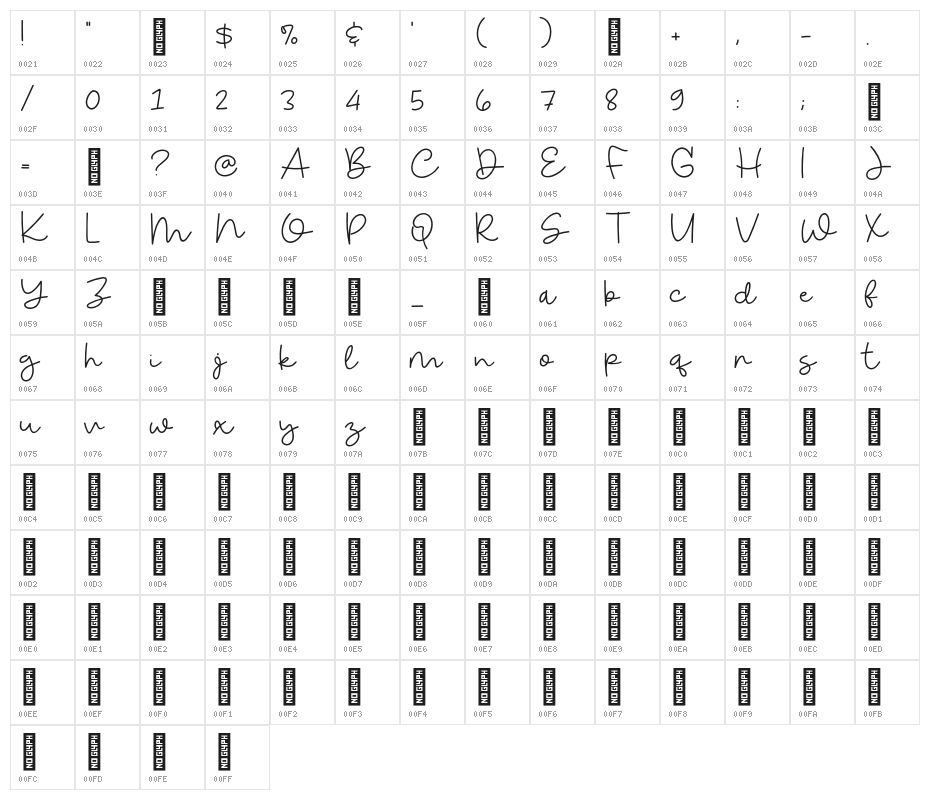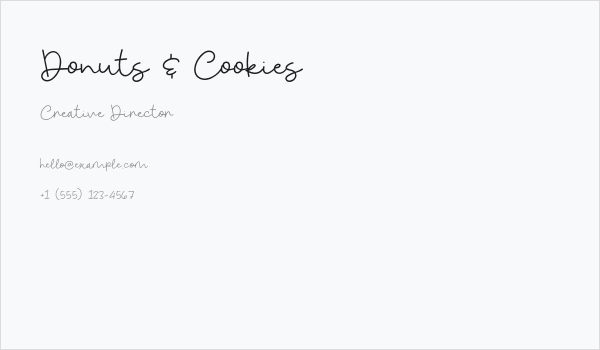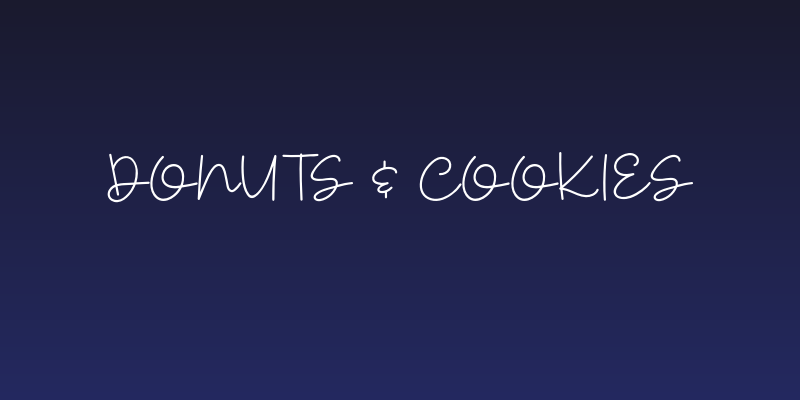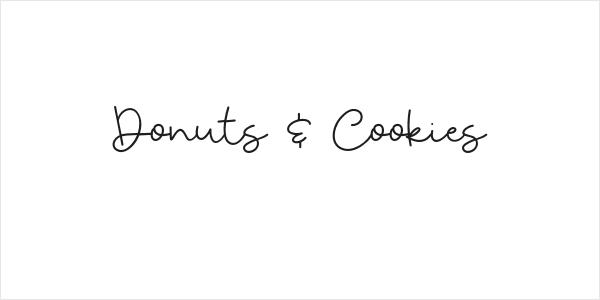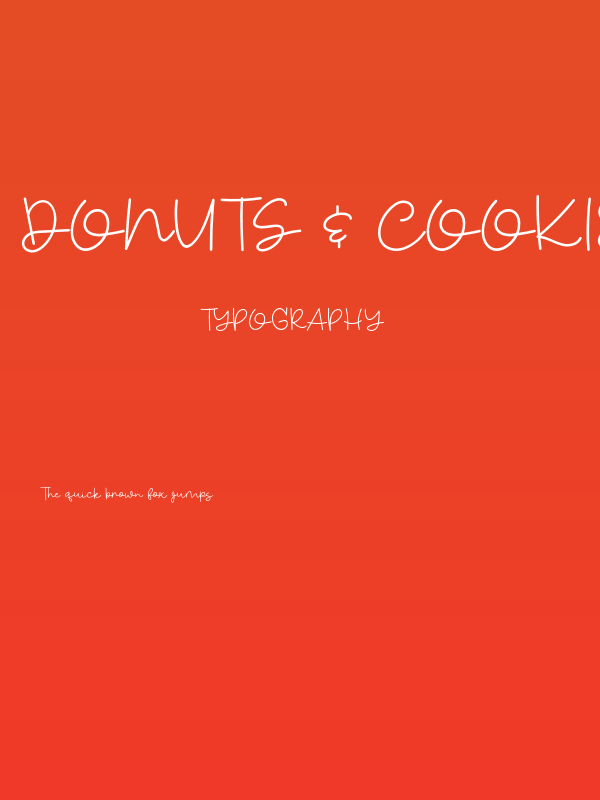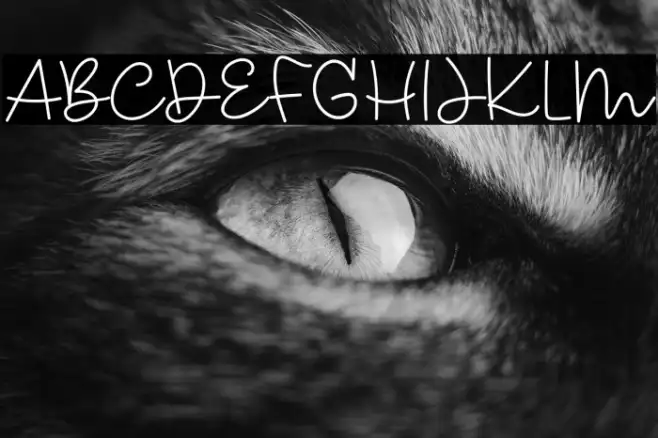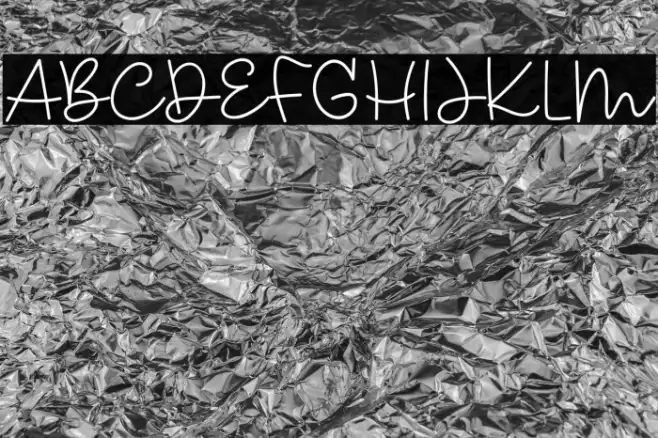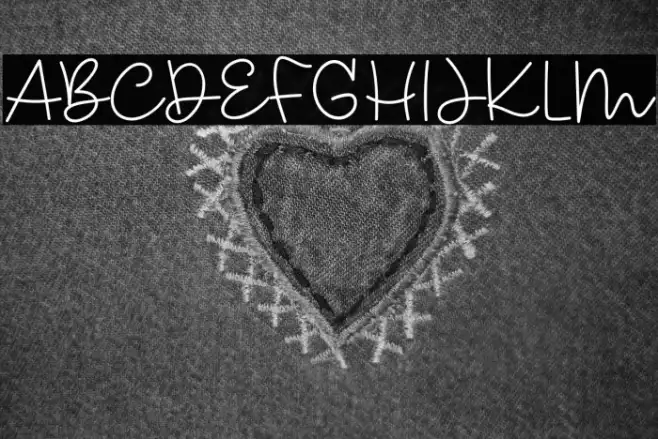
Donuts & Cookies Font
Donuts & Cookies Description
This font features a playful and casual handwritten style, characterized by its fluid and continuous strokes. The uppercase and lowercase letters exhibit a consistent flow, with rounded edges and a slightly irregular baseline that adds to its charm. The numerals are clear and maintain the same playful aesthetic, making them easily legible. Special characters are integrated seamlessly, maintaining the overall whimsical feel. This font's informal and friendly appearance makes it ideal for projects that require a personal touch.
| Use Case | Headlines, Logos, Social Media |
| Proposed Projects | Ideal for greeting cards, invitations, personal branding, and social media graphics. |